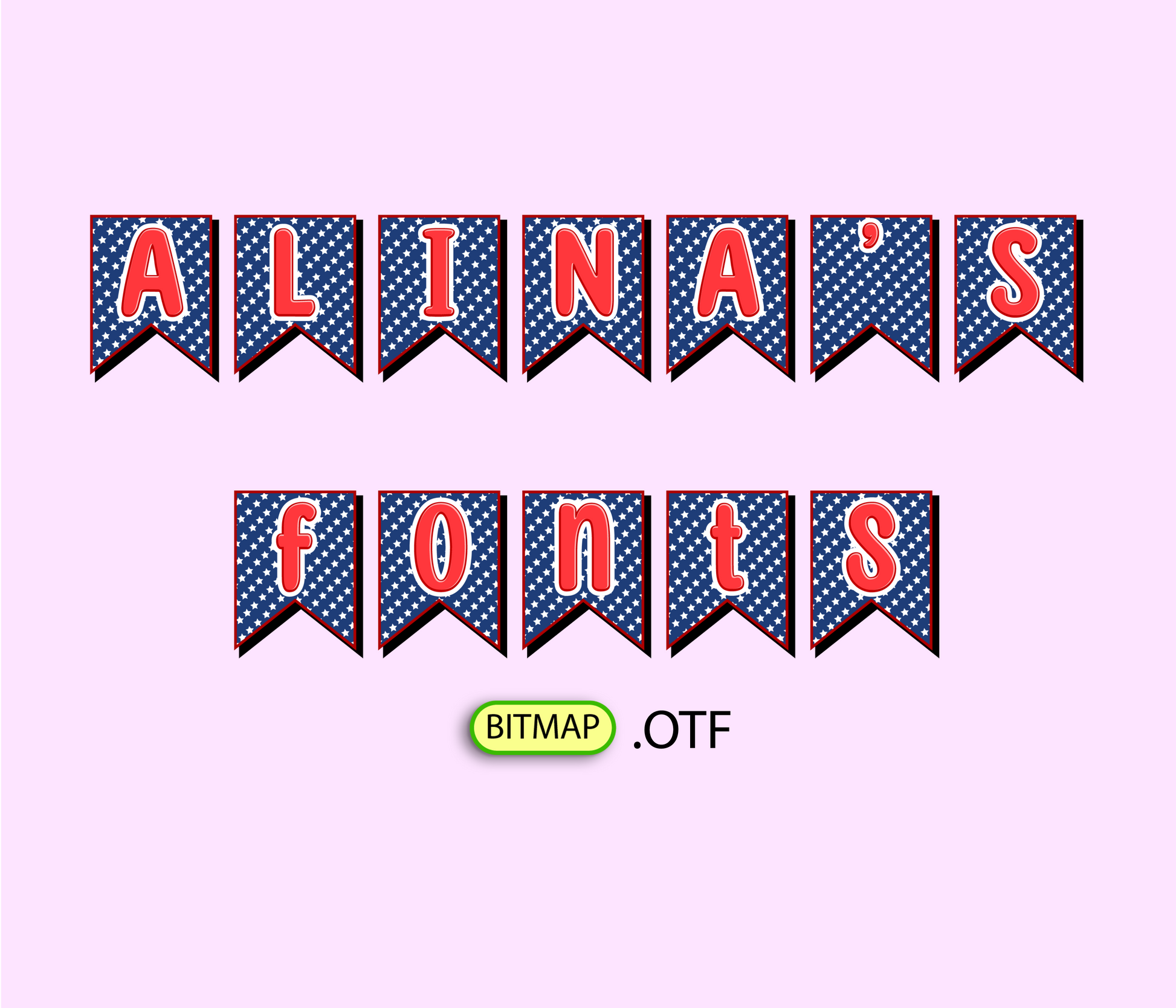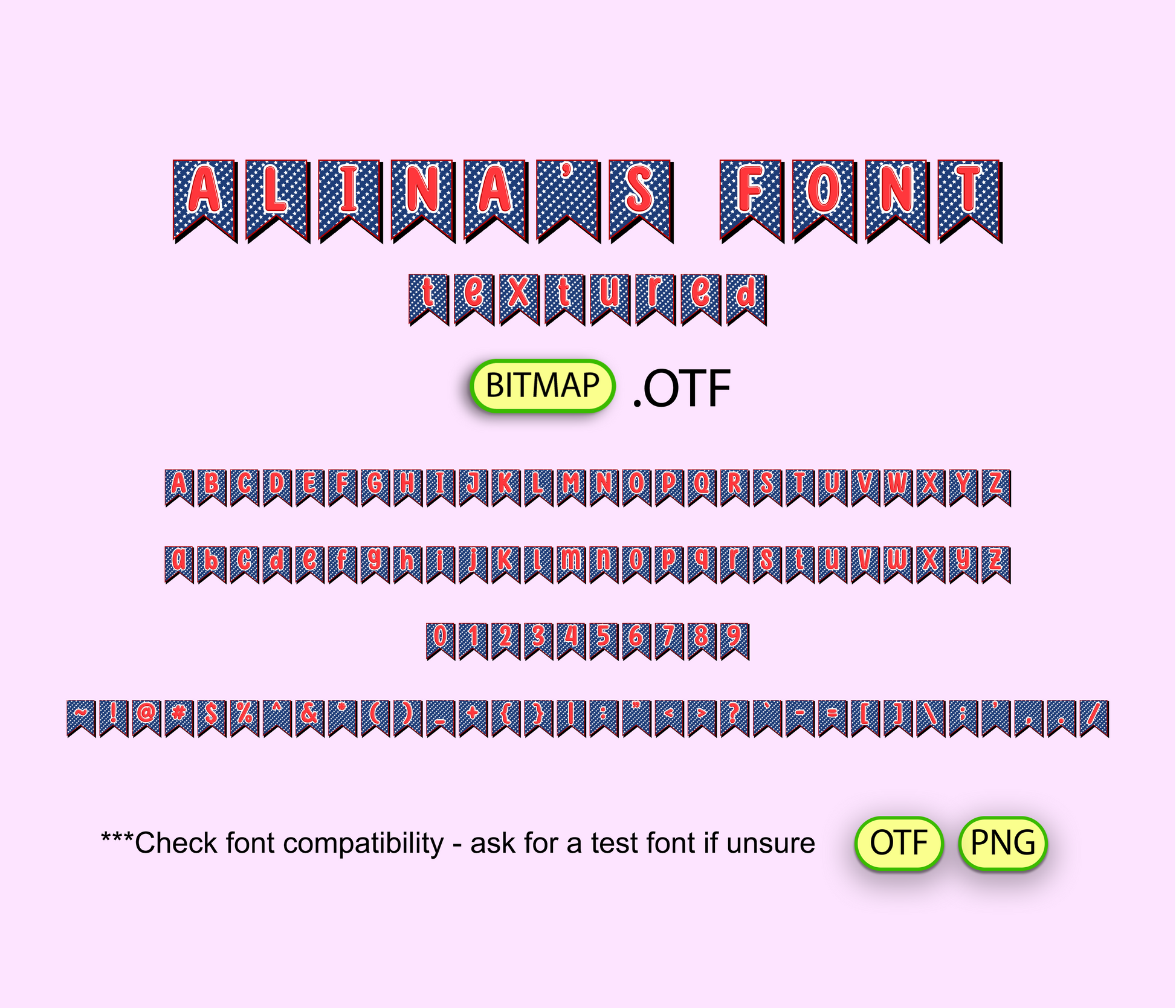
Firework Sky Banner Font Textured
Step into the explosive brilliance of sky-bursting celebration and dazzling patriotic festivity with our Firework Sky Font Textured, capturing the essence of glittering aerial spectacle and legendary national pride commemoration narratives. Perfect for Independence Day celebration planners, patriotic event coordinators, summer festival organizers, and bold design specialists, this font brings the radiant, explosive character of beloved sky-bursting freedom narratives to your projects. Create dazzling invitations, commercial goods, or web content with the luminous presence of patriotic firework spectacle storytelling.
Dazzling Typography for Independence Day & Patriotic Sky Celebration Projects
Our Firework Sky Font Textured features bold, celebration-banner letterforms with explosive aerial textures reflecting the world of legendary sky-bursting spectacles and iconic national pride festivity.
- Event Promotions: Craft dazzling invitations, banners, and party decorations for Independence Day celebrations, patriotic sky-watching gatherings, and summer freedom festivals that radiate the explosive spirit of legendary firework entertainment
- Merchandise Design: Perfect for apparel, wall prints, adhesive graphics, and patriotic collectibles that showcase the radiant aesthetic of sky-bursting spectacle and national pride celebration themes
- Digital Media: Light up websites, content channels, and social platforms with dazzling header designs and imagery that express the explosive wonder of legendary Independence Day sky festivities
- Creative Content: Add signature spectacle flair to patriotic illustrations, freedom artwork, and imaginative projects inspired by beloved sky-bursting commemoration chronicles
- Personal Projects: Stir radiant patriotic energy into memory albums, handcrafted items, and living space decorations inspired by the world of legendary firework celebration characters
Our font pays tribute to the world of sky-bursting wonder and generation-spanning patriotic celebration culture, empowering your projects with its bold and explosive radiant character. Whether crafting Independence Day materials, designing patriotic products, or adding a sky spectacle touch to personal projects, this font communicates the dazzling essence of firework freedom magic. Ready to light up patriotic celebration into your creations? This font is your key to attention-grabbing, impactful design.